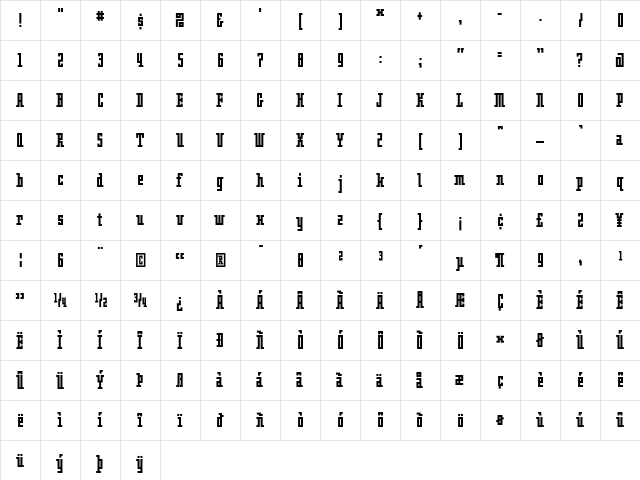
OblongBold Regular
Design Context for OblongBold Typeface
OblongBold is a composed and adaptable typeface that performs quietly and consistently across a wide range of design contexts. The heavy weight commands attention and anchors typographic hierarchies.